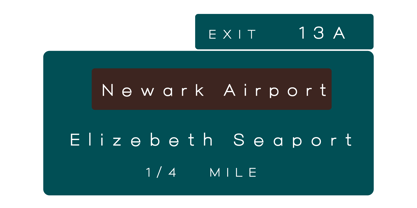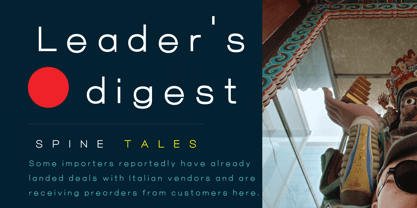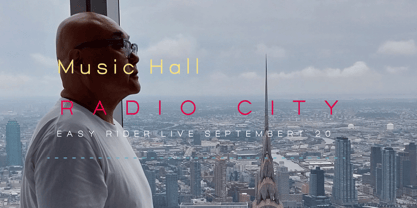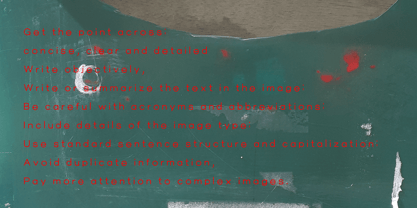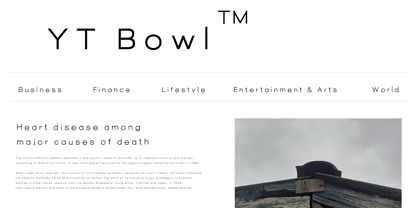
YT Bowl
by Yangtype
The YT Bowl Font Family was designed by Yona Yang and published by Yangtype. YT Bowl contains 1 styles.
YT Bowl™ is hybrids. Yangtype is based on context, aesthetics, humans, moderation, understanding, society, freedom, capital, opportunity, present, persistence.
This font refers to the main states based on the release of dopamine in humans. The shape of the letters is designed to allow one to calmly accept the meaning of the text. Suitable for designs that emphasize meaning.